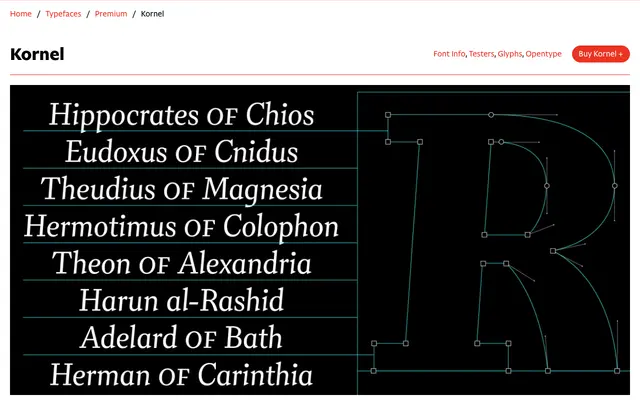
Kornel
CAST · Radek Łukasiewicz · 2023
Kornel specimen from CAST
A Renaissance-inspired text serif by Radek Łukasiewicz, built across seven weights with matching italics for demanding long-form composition.
Drawn with classic Renaissance proportions as its reference point rather than any single typeface, Kornel uses sharp entry and exit strokes and distinctive diagonal treatments to give letters such as R, K, k, v, x and y a simplified, contemporary character. The seven-weight range runs from Book to Black, each with a corresponding italic whose oblique strokes keep the companion light and readable. Variable font files are included alongside static instances, covering an extensive range of Latin-script languages.
Inspired by Renaissance typography with classic proportions, sharp terminals and diagonal stroke treatment; the gently slanted italics and simplified letterforms place it firmly in the humanist old-style tradition.